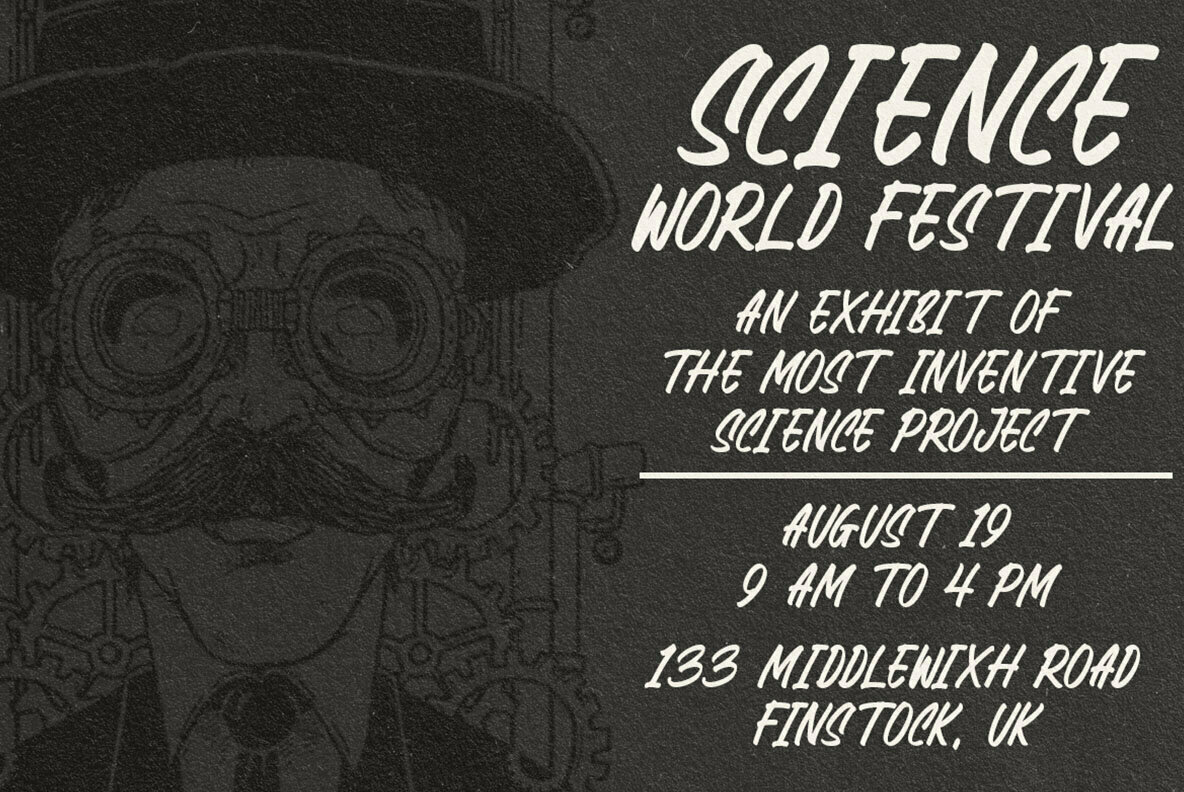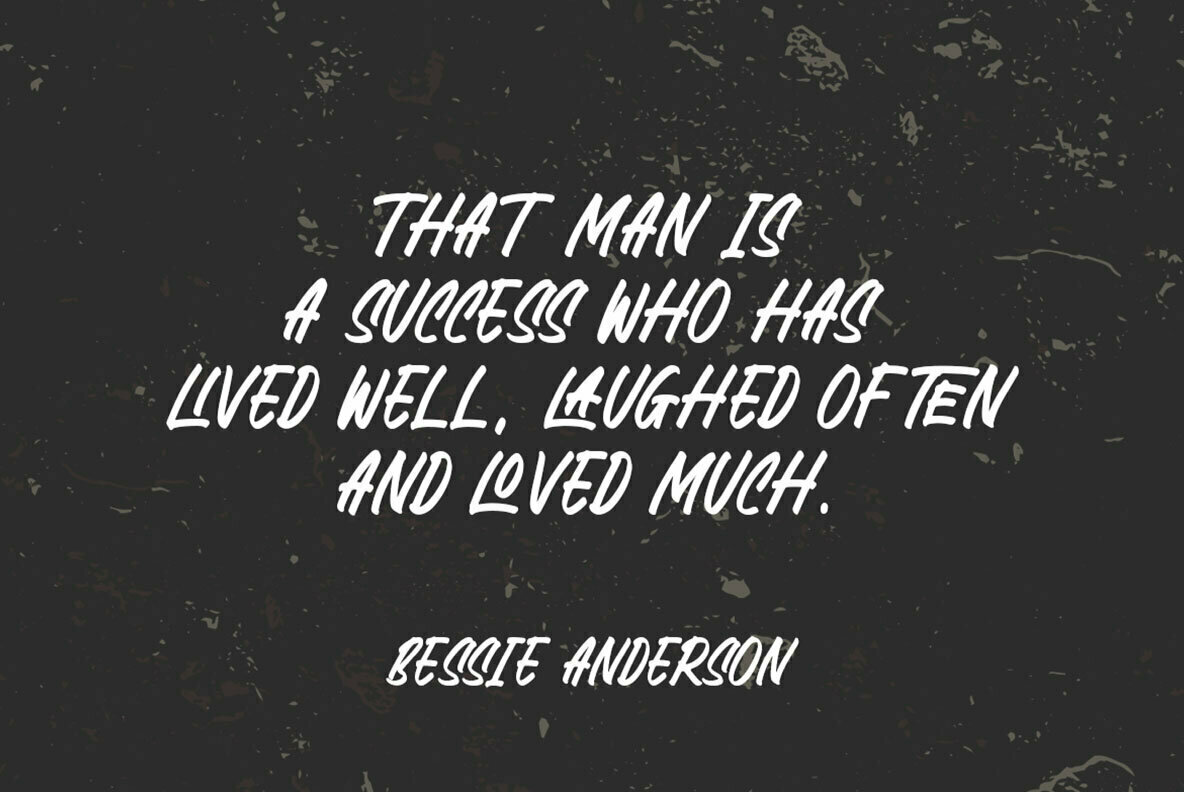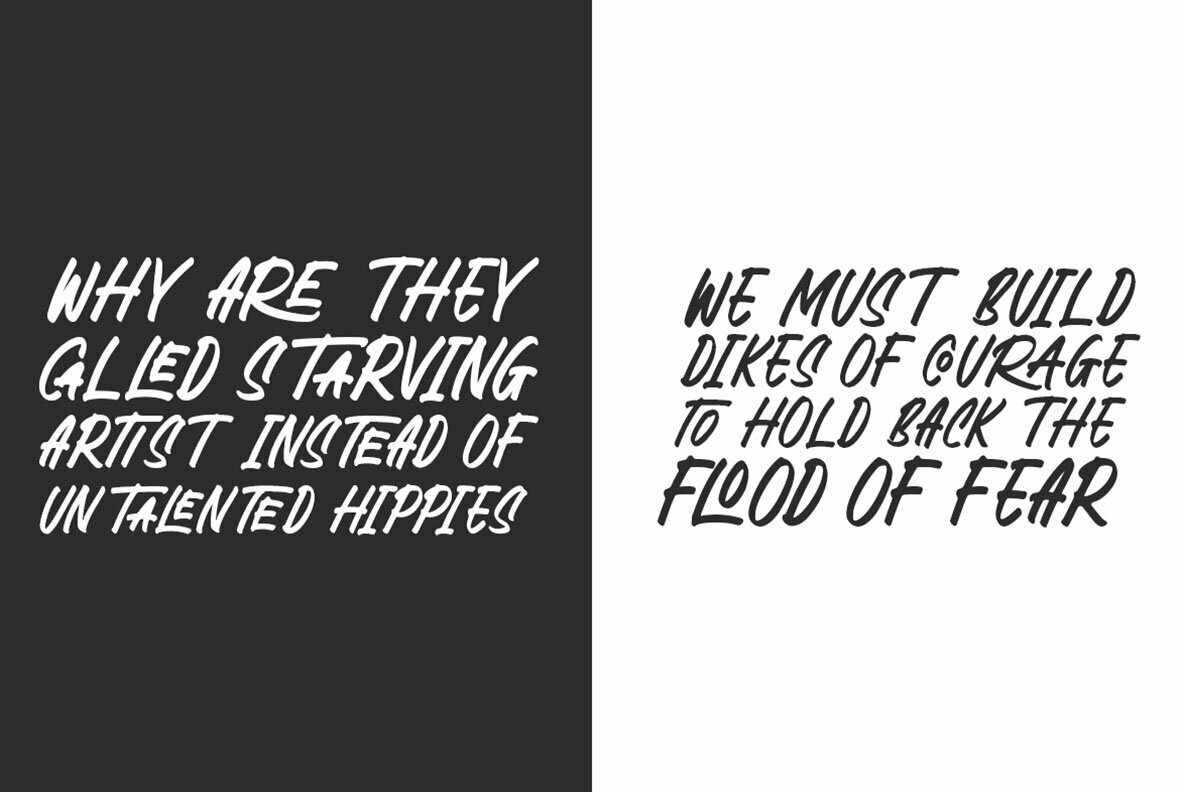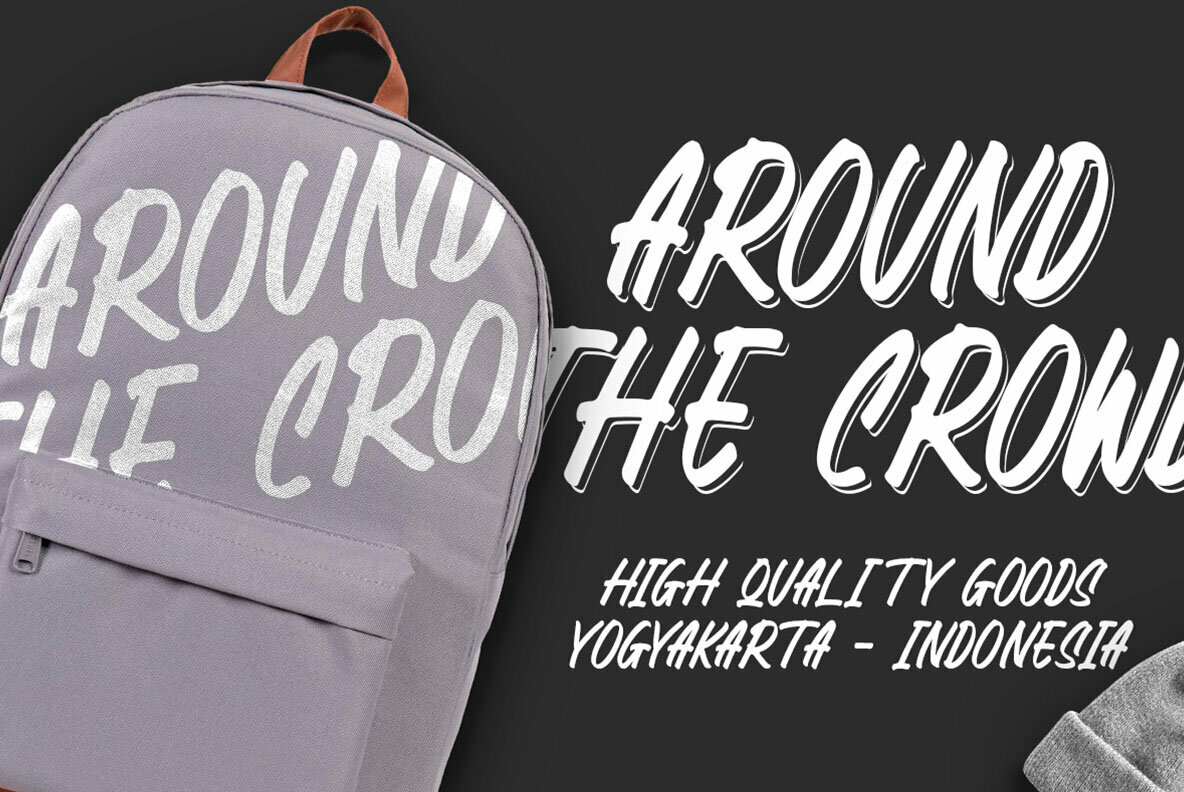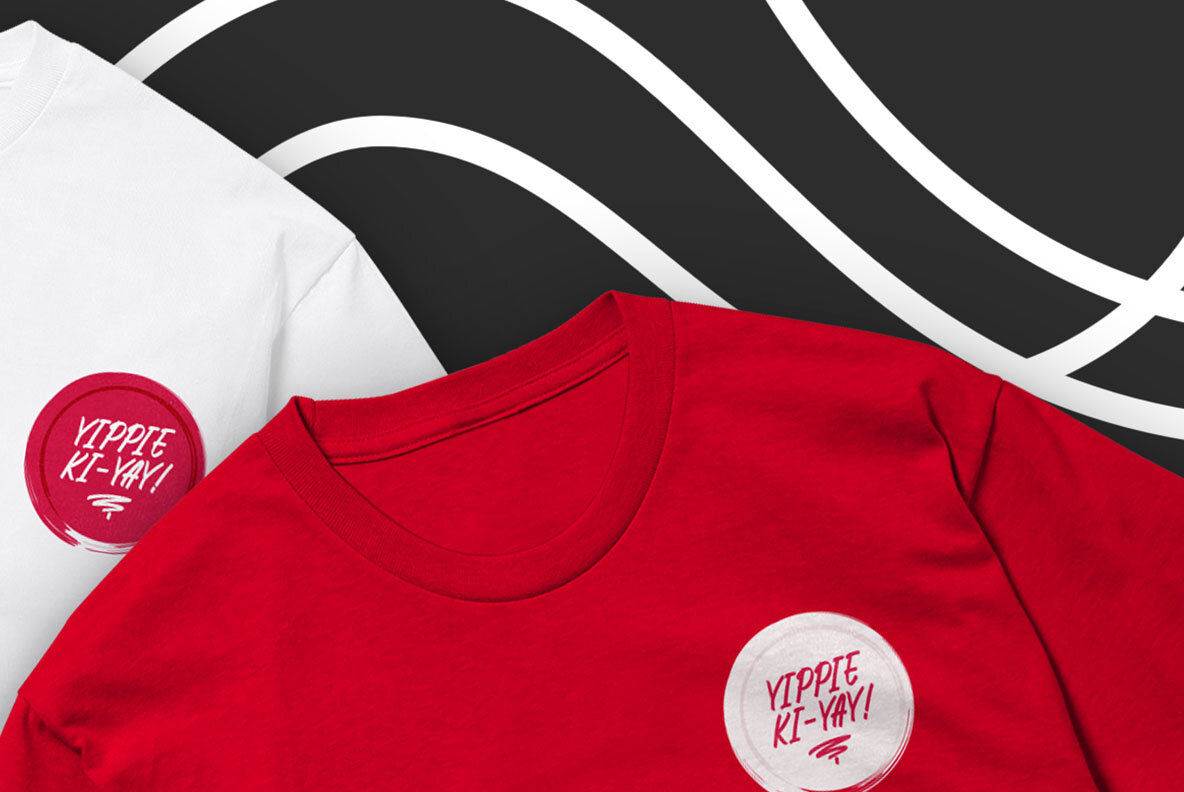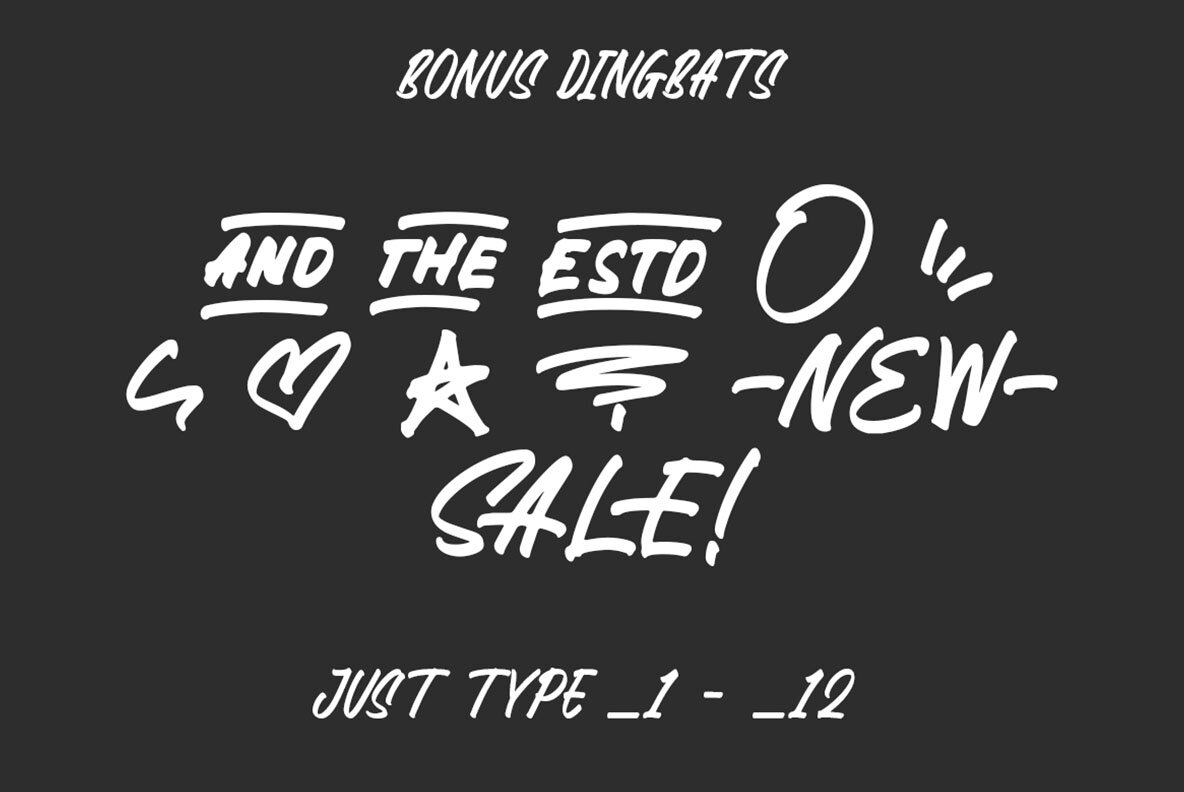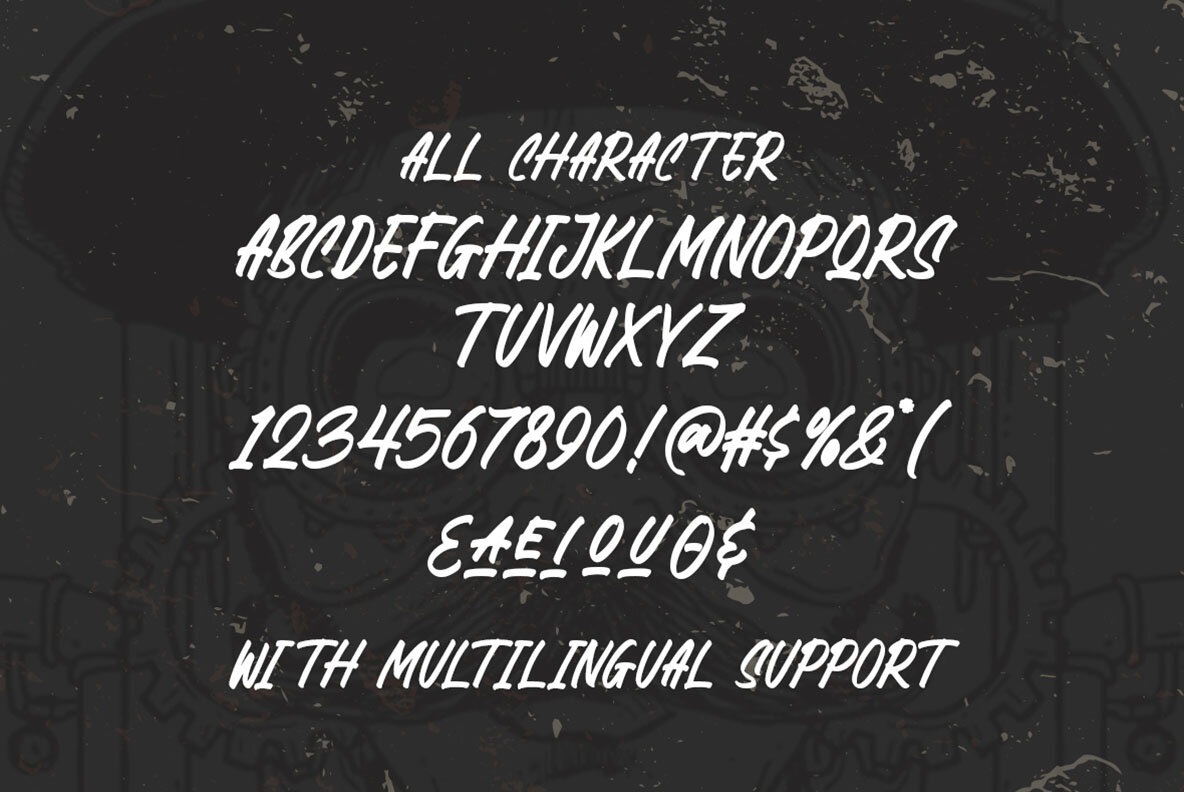
Scarious Typeface Font
Scarious
Scarious Typeface offers a distinct blend of style and functionality, designed to make an impression in various applications. Whether you're working on a brand logo, editorial layout, or high-end fashion packaging, this typeface provides the versatility needed for effective visual communication.Scarious Typeface: A Bold Display Option